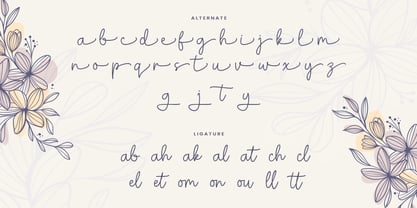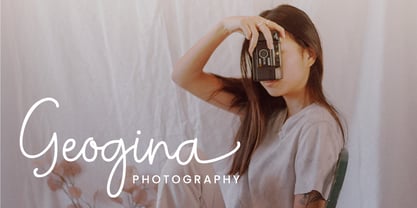
Konjelio
por IanMikraz Studio
La familia tipográfica Konjelio fue diseñada por Ian Mikraz y publicada por IanMikraz Studio. Konjelio contiene 1 estilos.
This font is perfect for those who appreciate the beauty of simplicity and fluidity in design. With its clean and consistent lines, Konjelio brings a touch of sophistication to invitations, branding materials, and personal projects. Whether you're crafting wedding invitations or updating your business cards, Konjelio ensures your text looks polished and professional, all while maintaining a personal, handmade feel. Embrace the charm of handcrafted design with Konjelio!
Konjelio isn't just a font; it's a statement of style and grace. Its seamless integration into various design platforms makes it a versatile choice for graphic designers and hobbyists alike. The fluidity of its characters makes it highly readable, ideal for longer texts or impactful headings. With support for multiple languages and a comprehensive set of glyphs, Konjelio adapts to your creative needs, making it a must-have in your typography toolkit. Step up your design game with the timeless elegance of Konjelio!